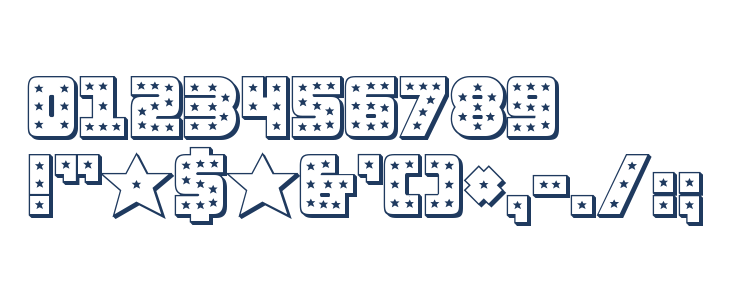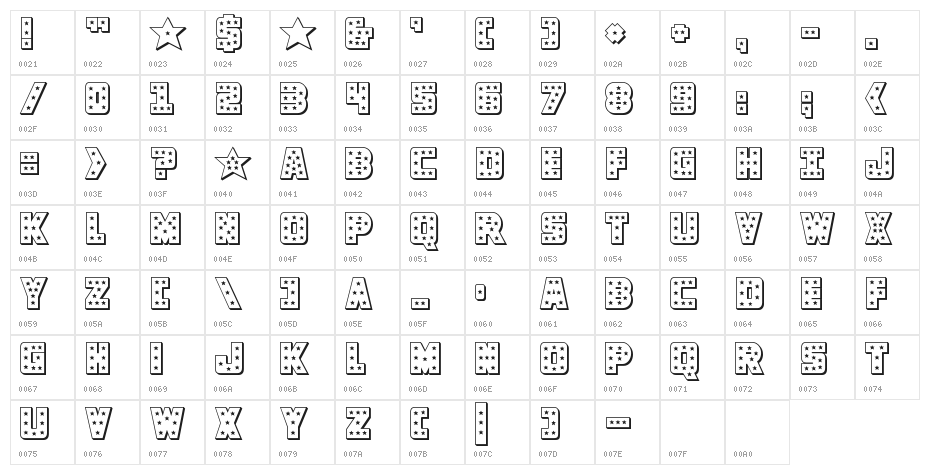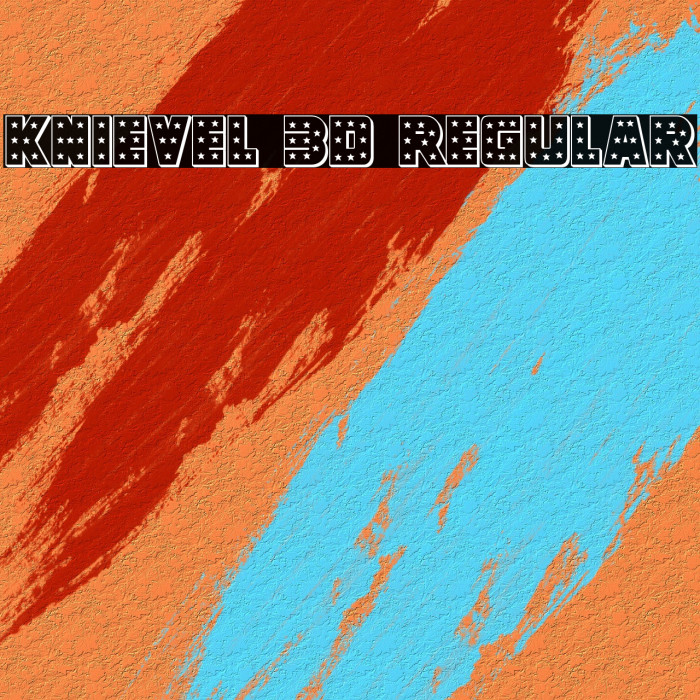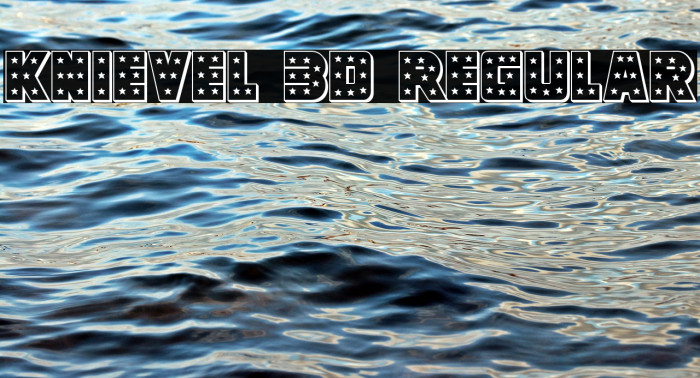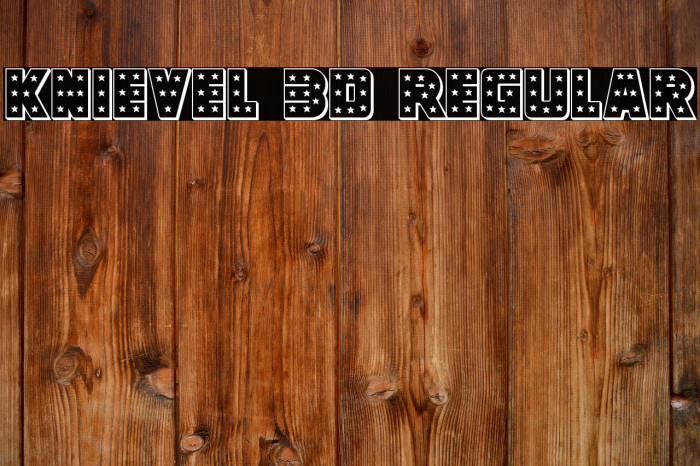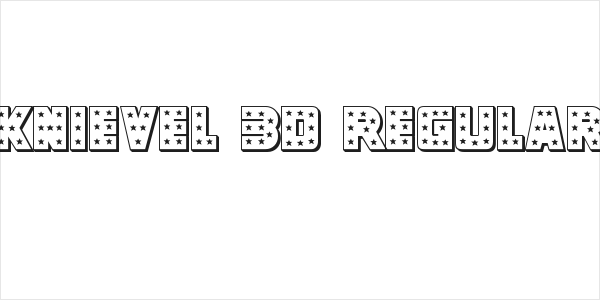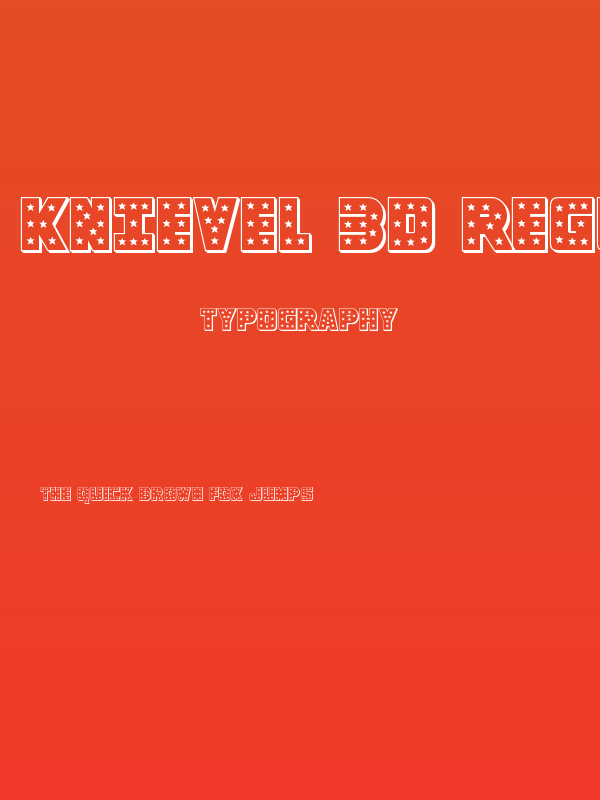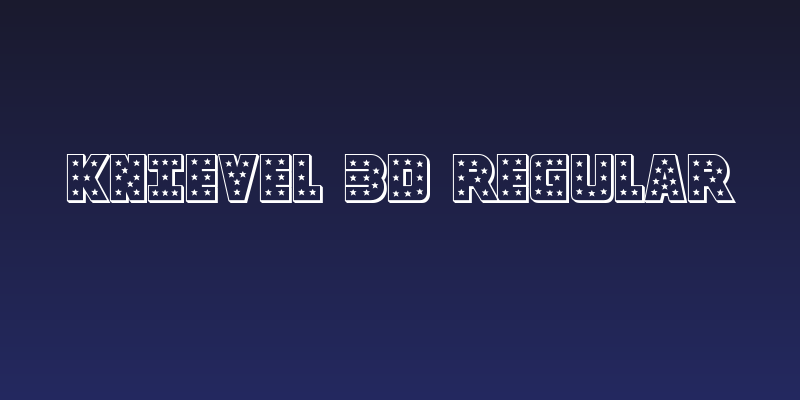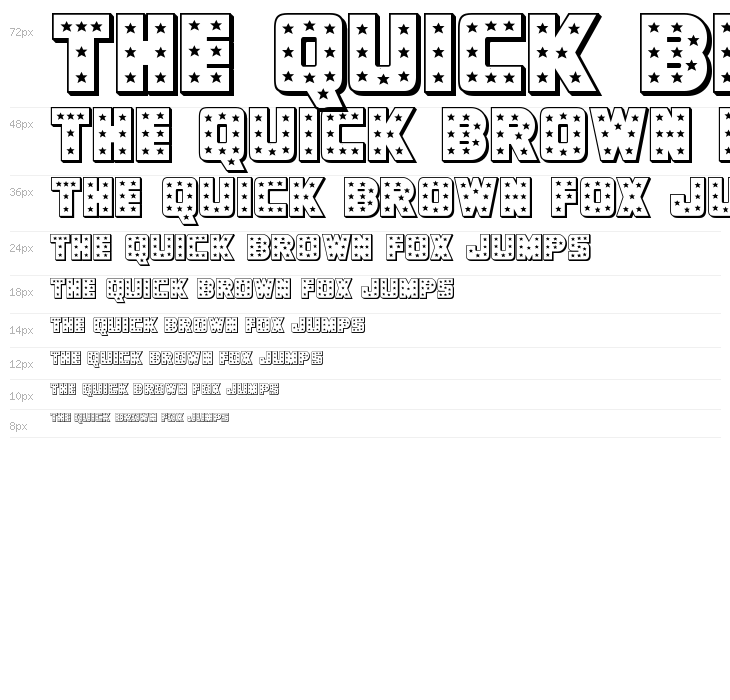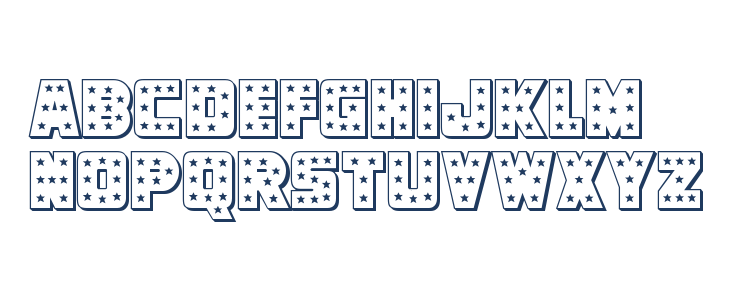
Knievel 3D Regular Font
Knievel 3D Regular Description
This font features a bold, three-dimensional design with a playful and decorative style. Each character is filled with star patterns, giving it a unique and eye-catching appearance. The letters are outlined with a thick black border, enhancing the 3D effect and making the characters stand out. The font is highly decorative, making it suitable for projects that require a fun and dynamic look. The characters are evenly spaced, ensuring readability despite the intricate design. The overall style is modern and vibrant, perfect for capturing attention.
| Proposed Projects | Ideal for posters, event invitations, children's book covers, and any project needing a playful and bold typeface. |